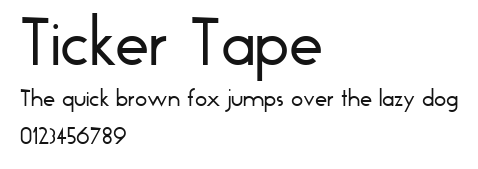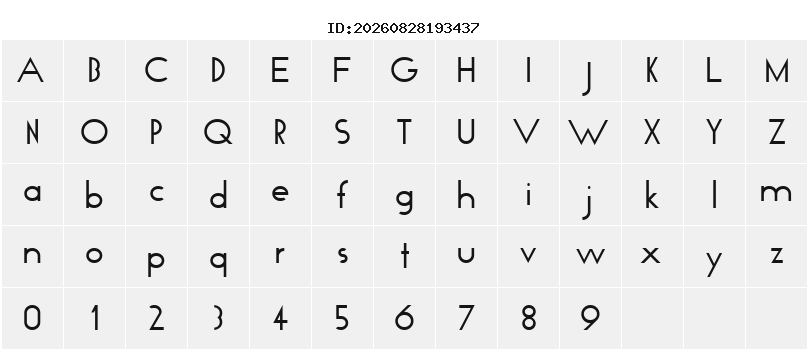
• Font Name: Ticker Tape
• Full Font Name: Ticker Tape
• Description: Cyrillic characters added by Paul Kravchenko. Original version of Ticker Tape was supplied as a tutorial font with Ares Fontmonger program. This font is also known as 'Geo' - reflecting its geometrical design. This font can be effective with use of only the uppercase letters for headings.
About Ticker Tape.ttf
Ticker Tape.ttf is a modern, elegant sans-serif font designed for ultimate readability and visual harmony. Perfect for branding, headlines, web design, and print materials.